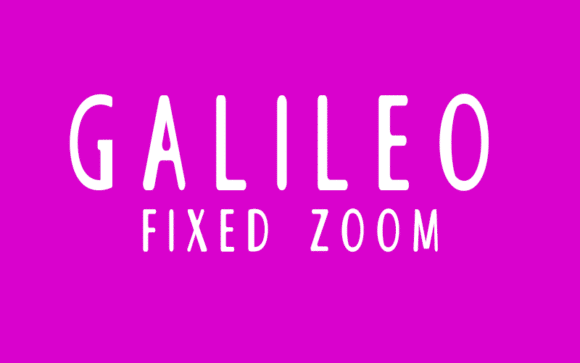
Galileo Fixed Zoom is a distinct, whimsical sans serif that blends traditional influences into a contemporary aesthetic.
Use Galileo Fixed Zoom to achieve an exquisite, yet subtle look and maximum versatility.